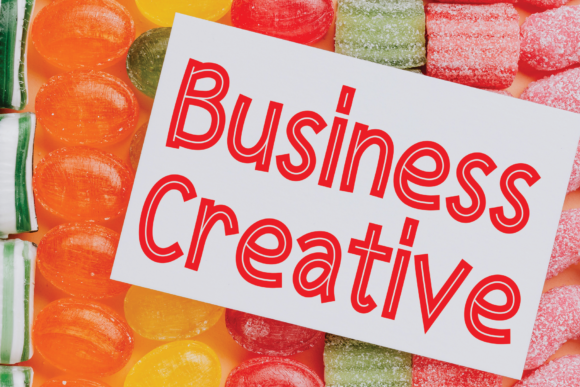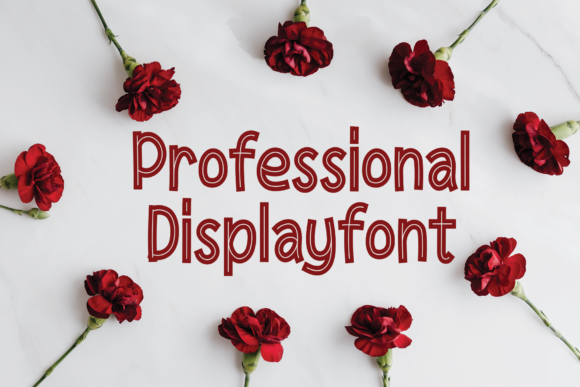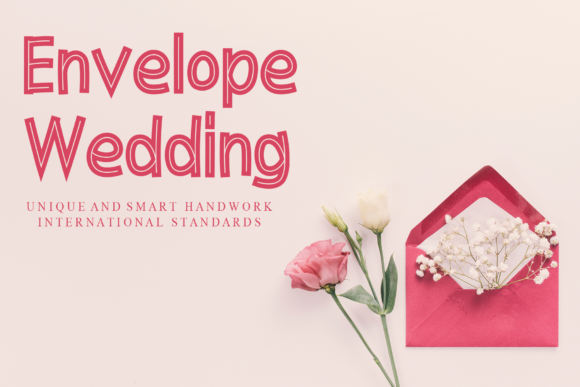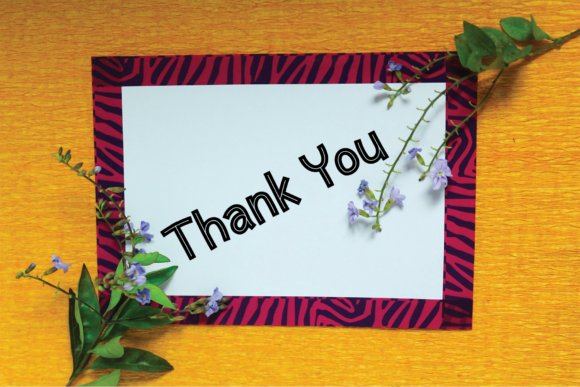
Discover the Sweet Taste of Creativity with Baby Honey Font
Have you ever been stuck on a design project, staring at a blank page, desperately searching for the perfect font to bring your vision to life? We’ve all been there! But what if I told you that there’s a font so cool, so trendy, and so bold that it’ll make your designs stand out in a crowd?
Enter Baby Honey Font, the perfect companion for designers looking to add a fresh twist to their work. This stunning display font is designed to make a statement, and with its unique style and character, it’s sure to capture attention. Whether you’re working on a logo, social media graphics, or any other design project, Baby Honey Font is the perfect addition to take your work to the next level.
Baby Honey Font Key Features
- Font Family: Baby Honey Font is a sans-serif font family designed to convey a sense of playfulness and modernity.
- Unique Characteristics: The font features a distinctive rounded design with subtle flair at the ends of the strokes, giving it a friendly and approachable feel.
Baby Honey Font Review
Overall, I think Baby Honey Font is a lovely addition to any design project. It’s perfect for creating a whimsical and playful atmosphere, especially when used for children’s content or brands targeting a young audience. ✨ The font’s rounded edges and soft lines evoke a sense of cuteness and approachability.
Here are some specific things I like about Baby Honey Font:
- ✨ Unique and quirky style that sets it apart from more generic fonts.
- ✨ Works well for headings and titles, adding a touch of personality to your design.
- ✨ Comes in a range of weights and styles, making it versatile for different design applications.
However, I do have a few concerns:
- ⚠️ Limited legibility at smaller font sizes, which may make it difficult to read in certain contexts.
- ⚠️ Not ideal for formal or professional designs, as it may come across as too playful or immature.
Overall, I think Baby Honey Font is a great choice for designers looking to add a touch of whimsy and fun to their projects. While it may have some limitations, it’s a valuable addition to any font collection.
For best results, use the Baby Honey Font for designs that require a playful, whimsical touch, such as children’s party invitations, baby shower invitations, and nursery decor.